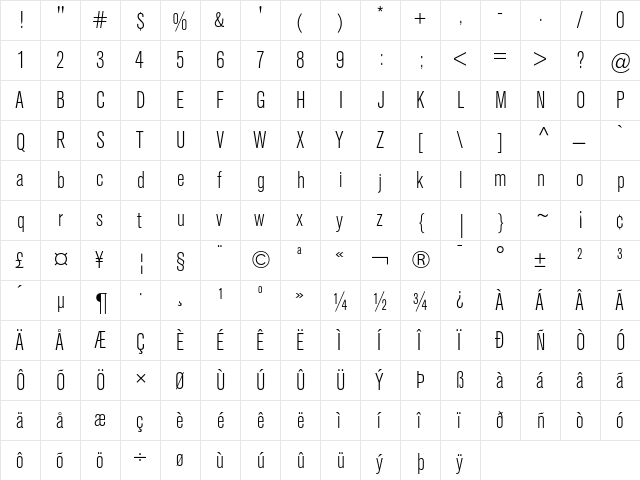
Berthold Akzidenz Grotesk BE Light Condensed Font Preview
Design Context for Berthold Akzidenz Grotesk BE Typeface
Berthold Akzidenz Grotesk BE has the quiet confidence of well-executed sans-serif typography: versatile, unobtrusive, and dependable at any size. Its slender proportions lend an understated elegance to any composition. The condensed width makes it efficient for tight spaces without sacrificing legibility.
A natural fit for high-end product packaging, luxury brand identities, and refined web typography.
Font Pairing: Pair Berthold Akzidenz Grotesk BE with a medium or bold serif for headlines — the weight contrast creates an elegant, high-end feel.
Pro Tip: Use Berthold Akzidenz Grotesk BE tightly set in headlines and banners — its condensed proportions make it ideal for maximum impact in minimum horizontal space.